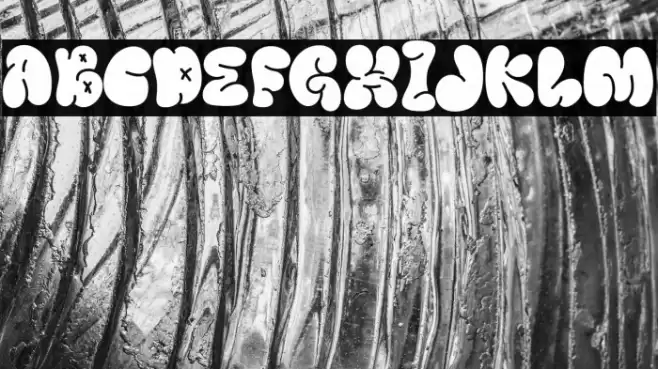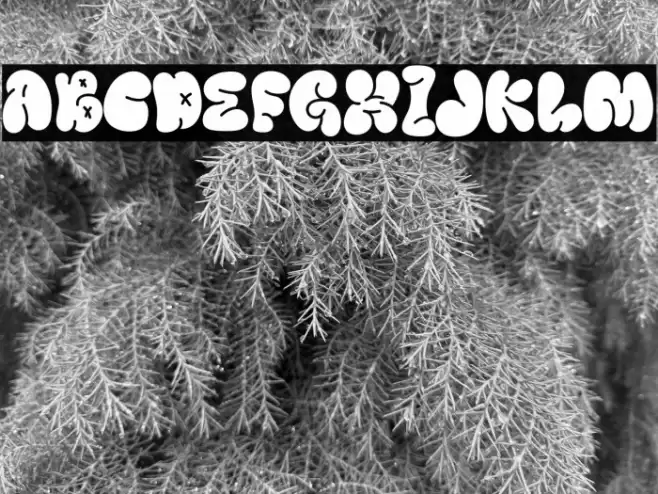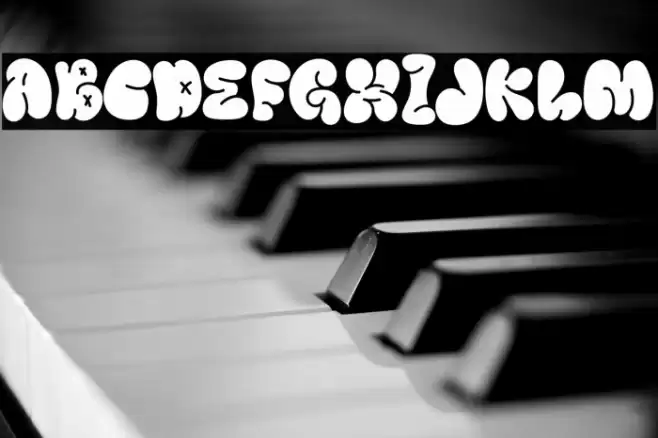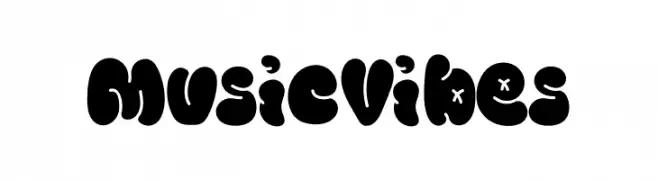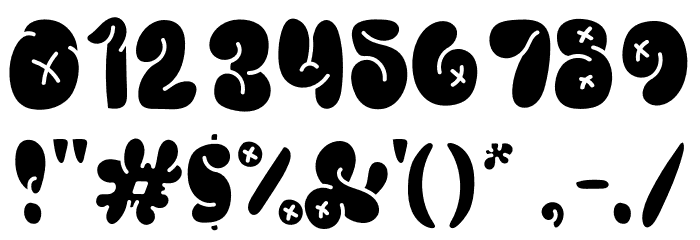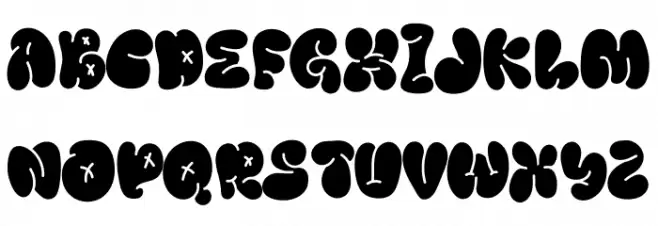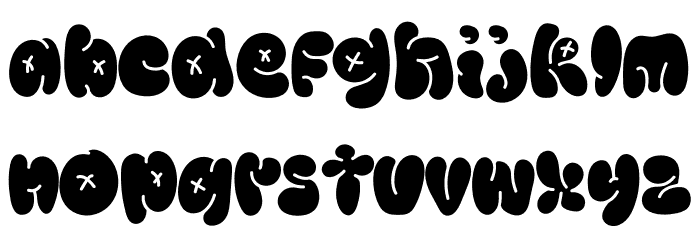
Music Vibes Font
Music Vibes Description
This playful and bold font features thick, rounded characters with a unique, whimsical style. Each letter is designed with a bubbly appearance, incorporating playful elements such as small cutouts or decorative marks that add a sense of fun and creativity. The font's overall look is reminiscent of a cartoonish or retro aesthetic, making it ideal for projects that require a lively and energetic feel. The characters are well-spaced, ensuring readability while maintaining their distinctive style. This font is perfect for capturing attention and conveying a sense of joy and enthusiasm.
A playful, bold font with a bubbly, whimsical style from Uncategorized fonts.
- Font: Music Vibes
- Proposed Projects: Ideal for children's books, playful branding, party invitations, and creative posters.
- Overall Style: Playful, Retro, Cartoonish